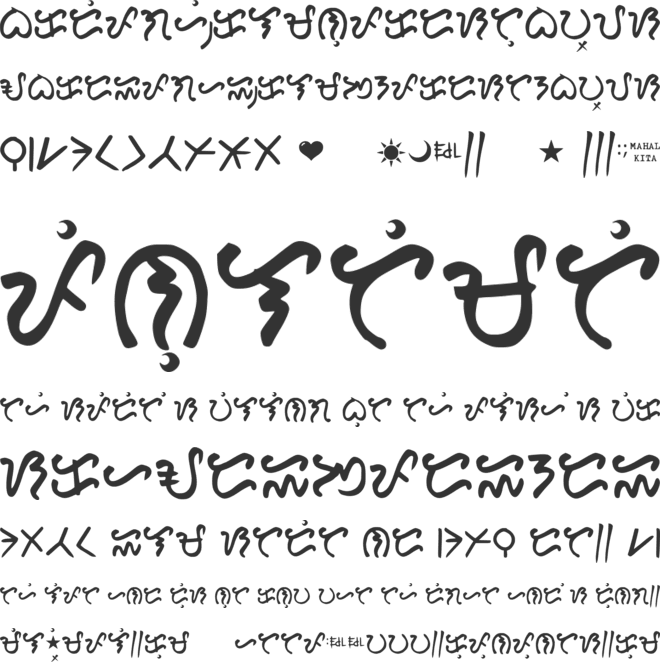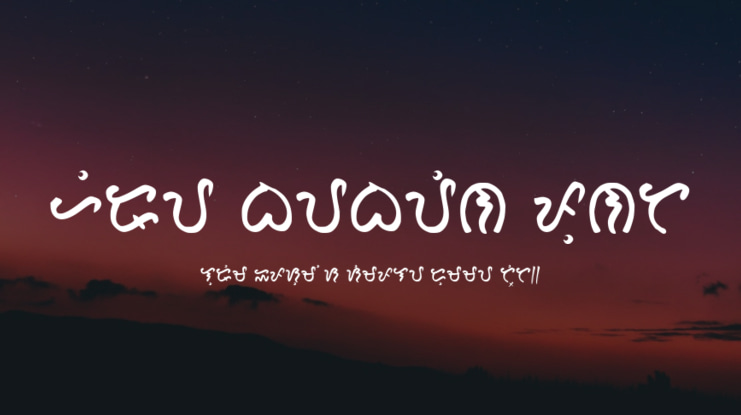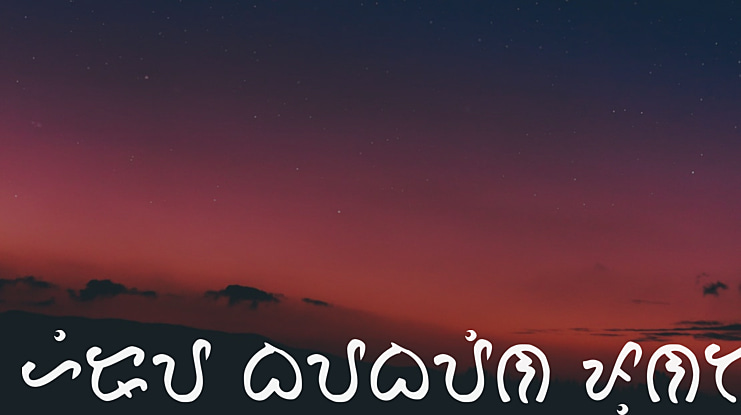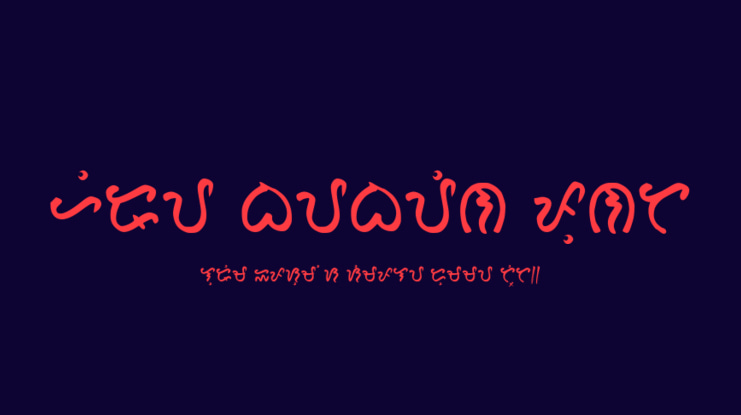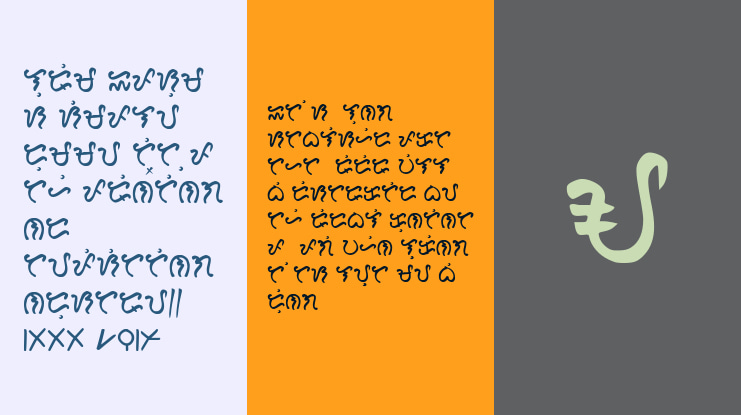
Hiraya_baybayin_font Font Family
The Philippine National Writing System, also known as Baybayin B18x, is composed of various elements such as Pamilangan, Moon Kudlit, Virama krus, sinawali, and pamudpod.
Baybayin B17x, Pamilangan, Moon Kudlit, Virama krus, sinawali, pamudpod